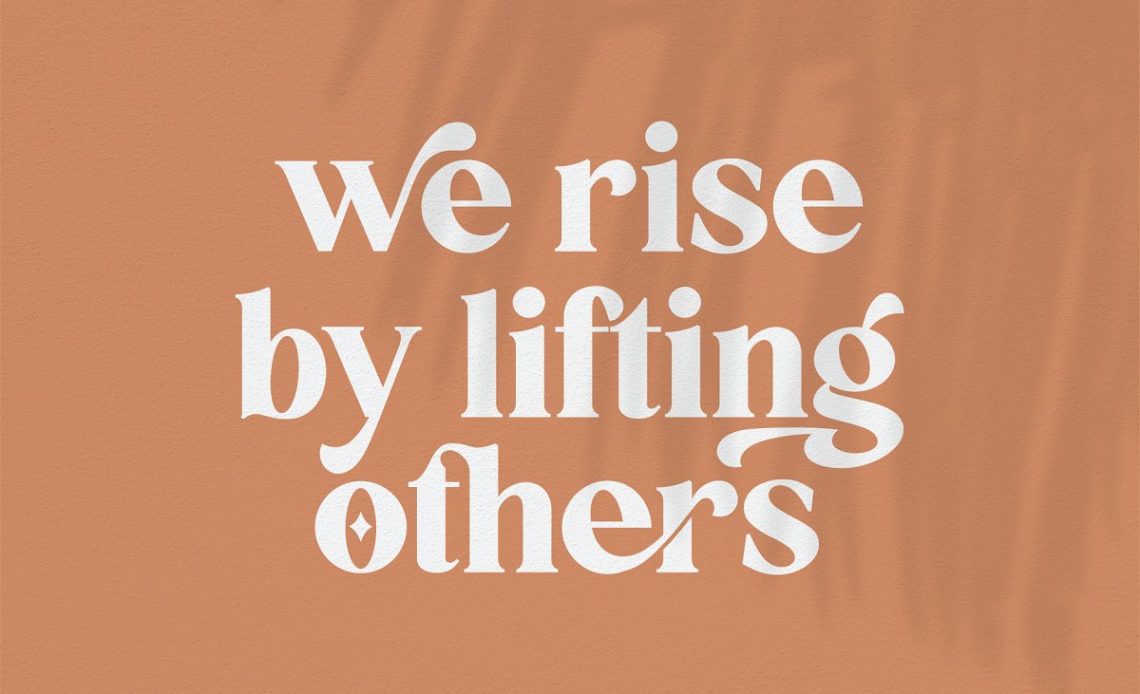
Looking for a unique and stylish font to take your project to the next level? Look no further than 5th Avenue - the perfect fancy typeface for anyone looking to elevate their branding, logos, wedding invitations, and more.
Created by 50Fox Studio, this font family is inspired by the edgiest looks from modern luxury fashion and is perfect for anyone looking to add a touch of elegance and sophistication to their design projects. With tons of alternative characters, ornaments, and unique ligatures, 5th Avenue is incredibly versatile and allows you to create a classical style by accessing alternative letters in Opentype Features.
But that's not all - 5th Avenue is also incredibly flexible, allowing you to display elegant typography simply by adjusting the spacing between the letters. Whether you're creating magazine imagery, posters, clothing, packaging, website headers, or stylish text overlays, 5th Avenue has got you covered.